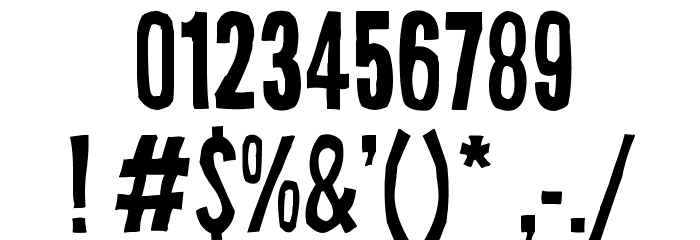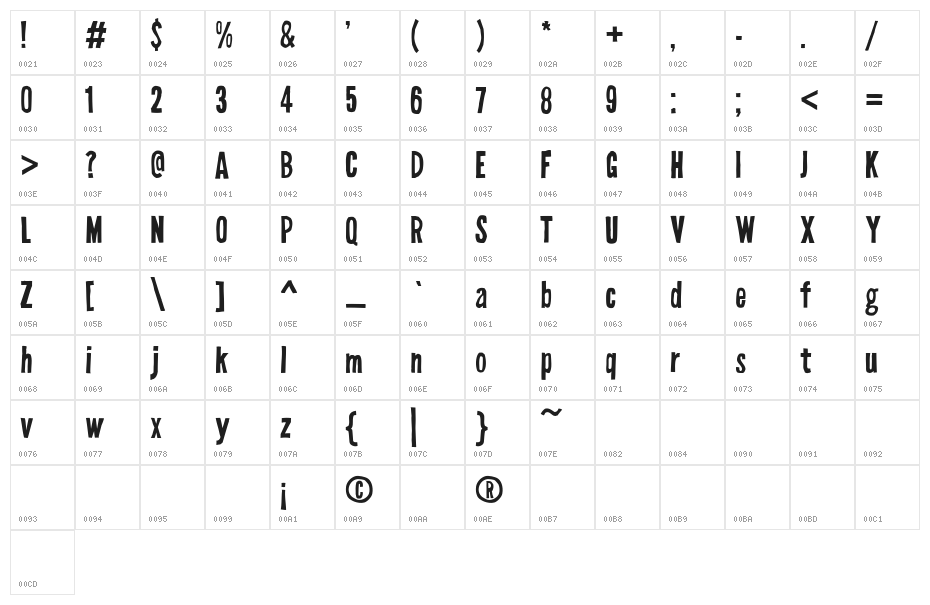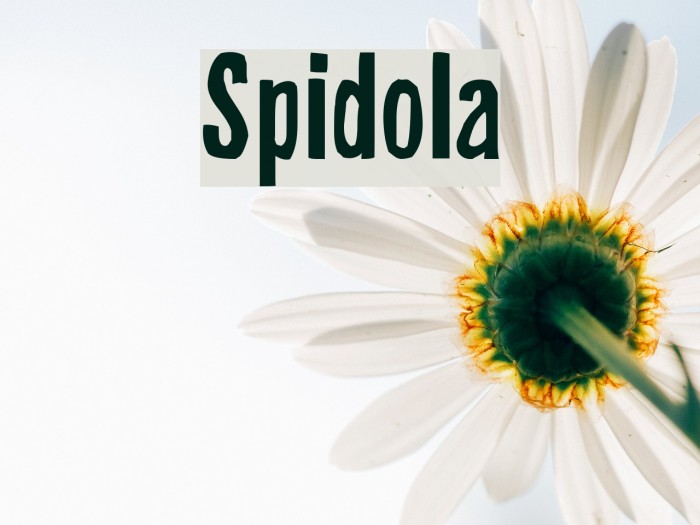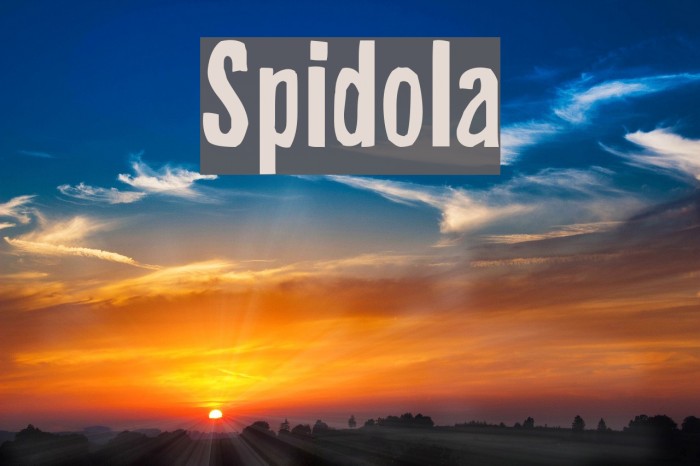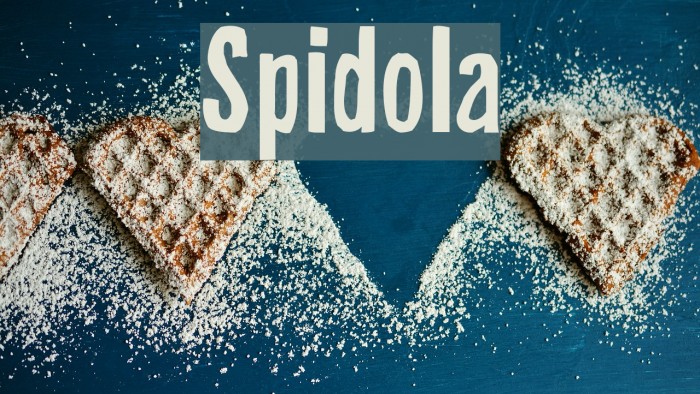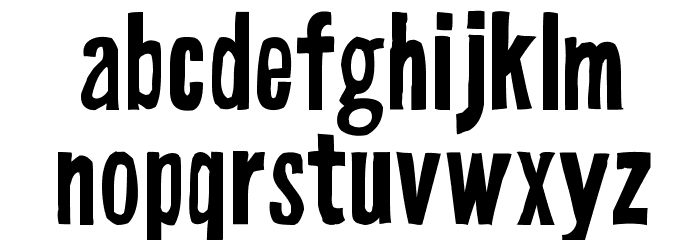
Spidola Font
Spidola Description
This font features a bold and dynamic style with a slightly condensed appearance. The uppercase letters are tall and assertive, while the lowercase letters maintain a consistent flow with a touch of playfulness. The numbers are robust and align well with the overall aesthetic. Special characters are designed to complement the boldness of the alphabet, making them suitable for attention-grabbing designs. The font's unique character shapes and strong presence make it ideal for impactful headlines and creative projects.
| Proposed Projects | This font is perfect for posters, branding, packaging, and any project that requires a strong visual impact. |